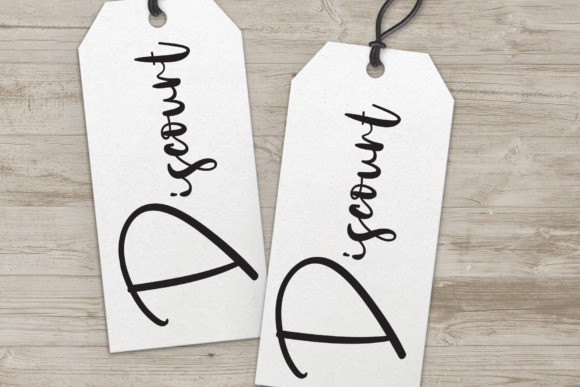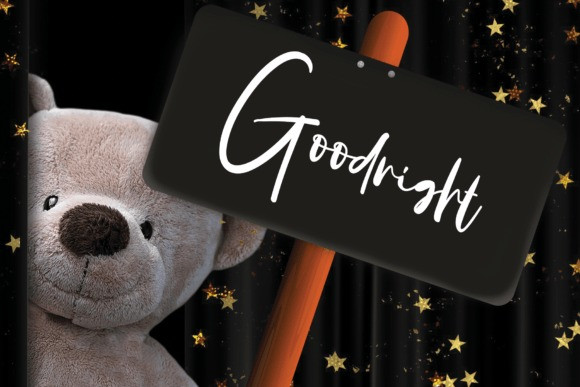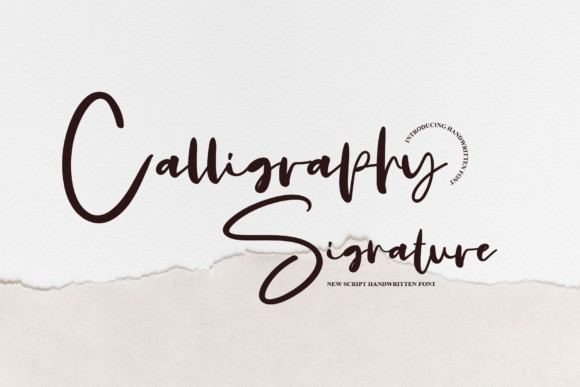
Calligraphy Signature Font
Calligraphy Signature Font is a new modern script calligraphy typeface with its own unique flow and elegant personality. Is suitable for all your design project needs such as logo design, branding, covers, posters, and more.